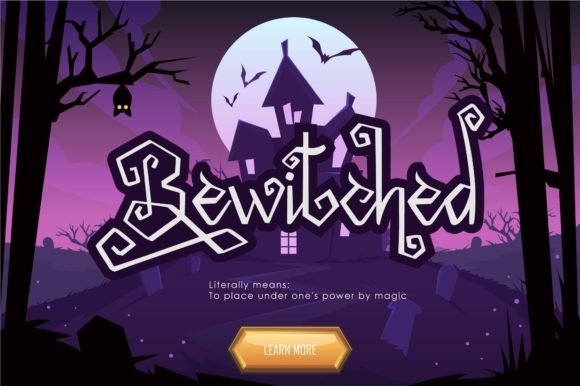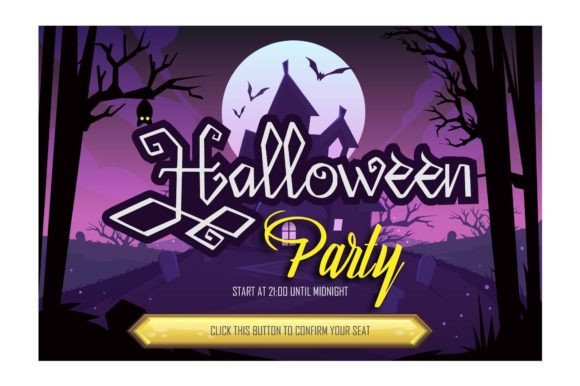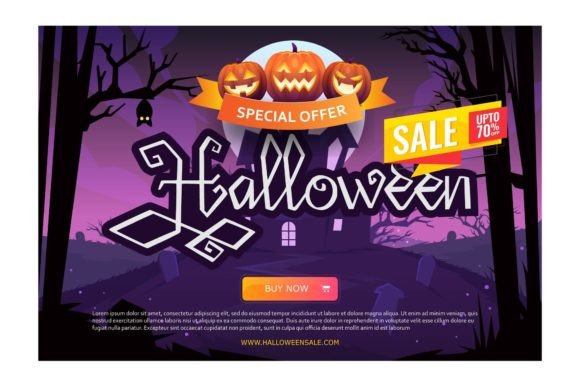
Introduction to Midnightman Font
Midnightman is a spooky and mysterious display font perfect for invitation cards, T-shirts, letterheads, signage, labels, posters, badges, and many more.
Add it to your most creative designs, and notice how it makes them stand out This font is PUA encoded, which means you can access all of the glyphs and swashes with ease.